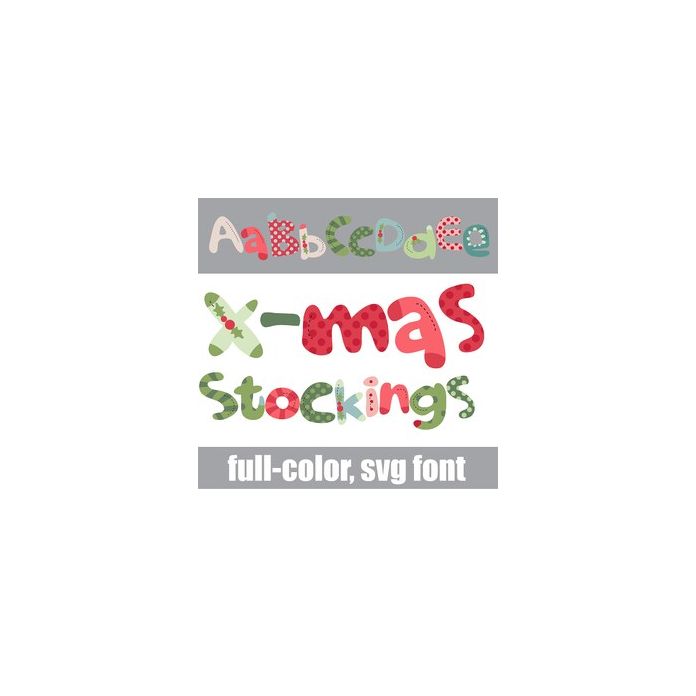
This full-color font features stocking that look like cute, stuffed lettering in a Christmas color palette. There is an alt case w/ additional colors you can access through your system or Silhouette's glyph map.